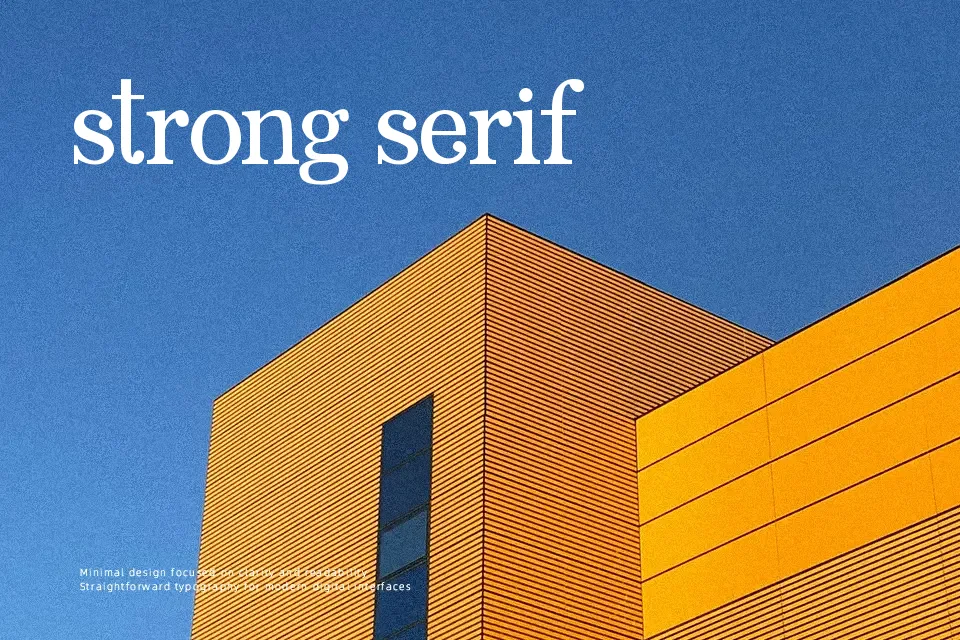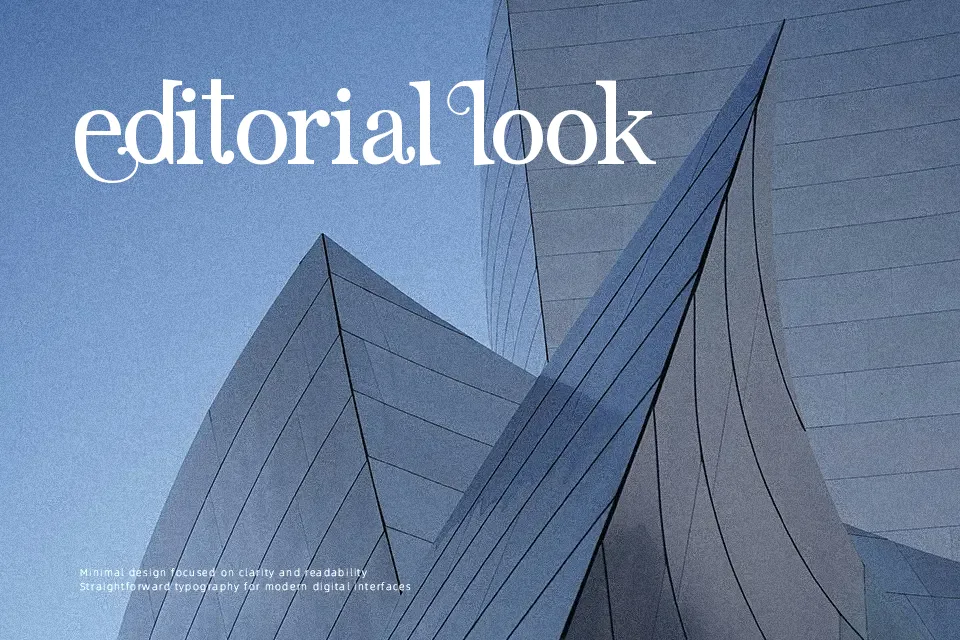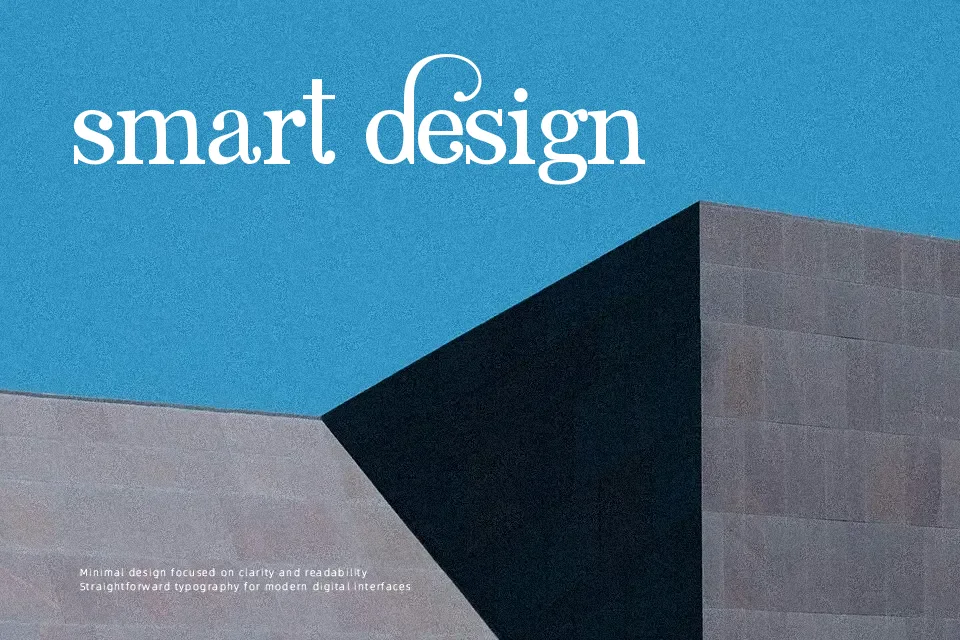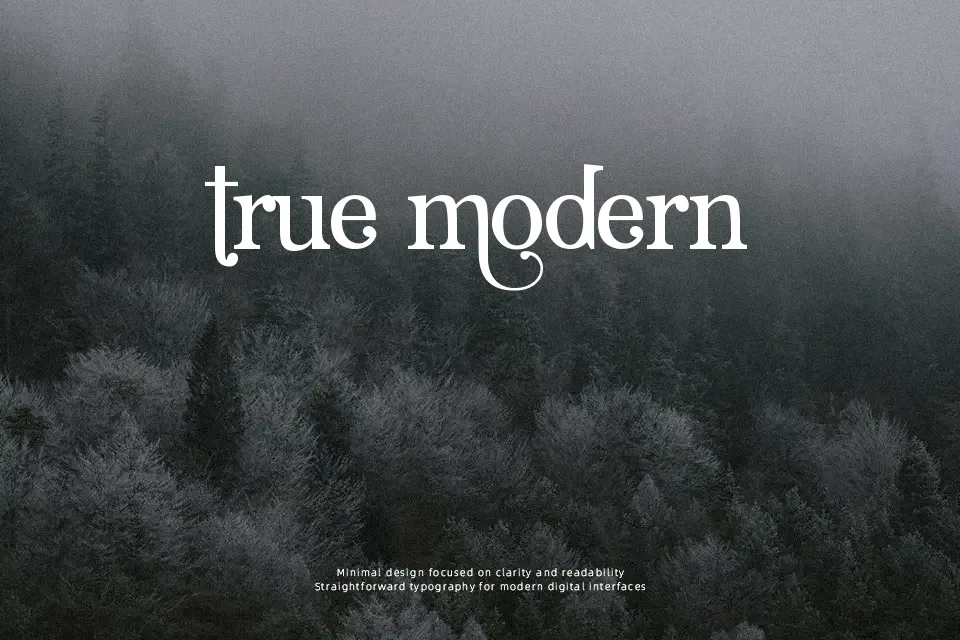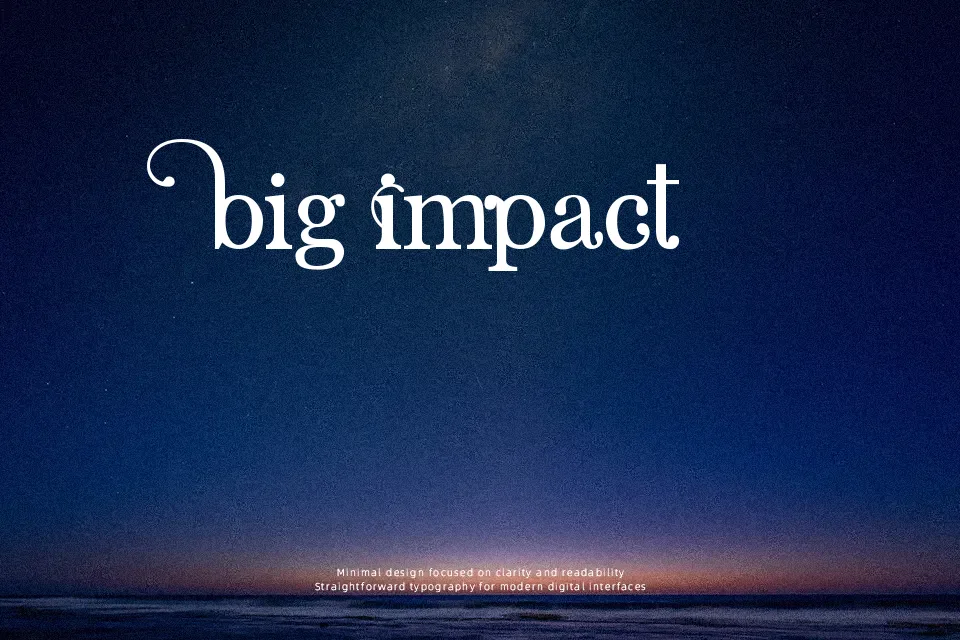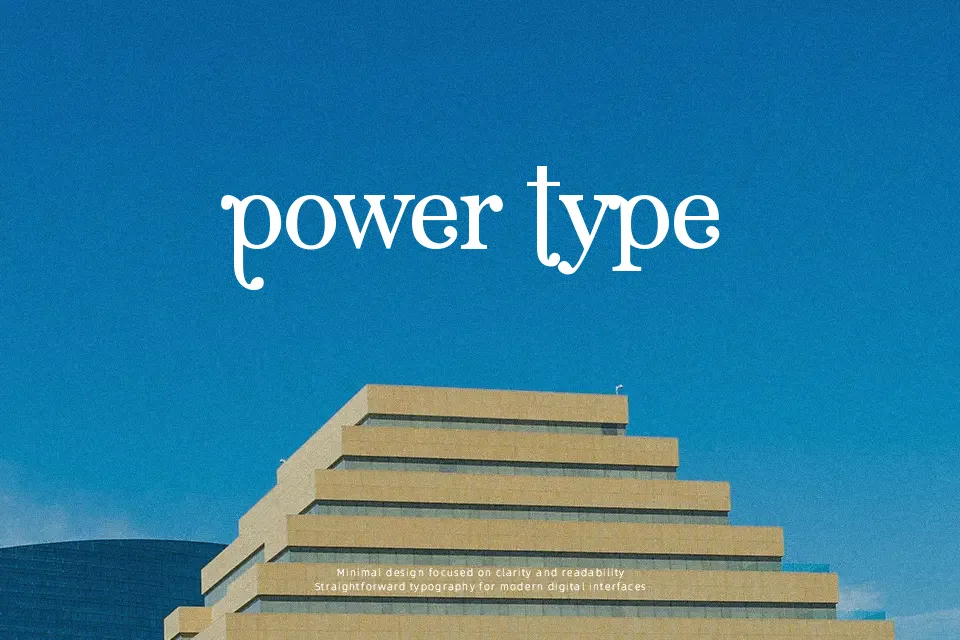
Angelic Serif Font
The stroke weight remains relatively consistent throughout each letter, with subtle flaring at terminals that gives the font a gentle, approachable feel without excessive ornamentation. Its letterforms lean toward simplicity rather than complexity, making it legible at smaller sizes but somewhat plain when compared to more elaborate decorative serifs. Originally created as a pared-down alternative to Angelic Peace, the typeface works well for short text applications like monogram designs, spiritual quotes, and tattoo lettering where clarity matters more than decorative impact. The slightly whimsical vintage quality lends itself to romantic or faith-based projects, particularly wedding stationery and inspirational posters. However, the simplified structure limits its effectiveness in body text, where readers may find the spacing and contrast insufficient for comfortable extended reading. It also struggles in corporate or technical contexts that demand neutrality and professionalism, as the decorative elements carry a personal, spiritual tone that feels out of place in formal business materials.
– tattoo lettering and body art quotes
– spiritual or faith-based branding
– wedding invitation headers
– inspirational poster text
– long paragraphs or body text
– corporate reports or business documents
– technical manuals or instruction sheets
– modern tech branding
Perfect for branding, invitation, and logo, with a calm and decorative style.